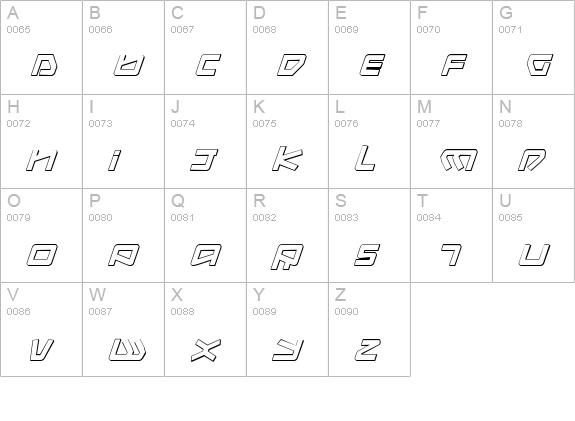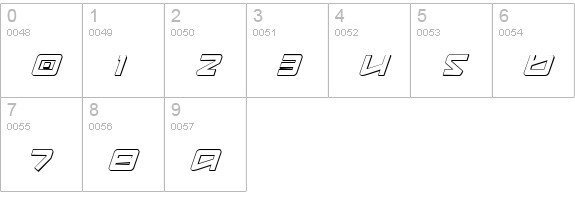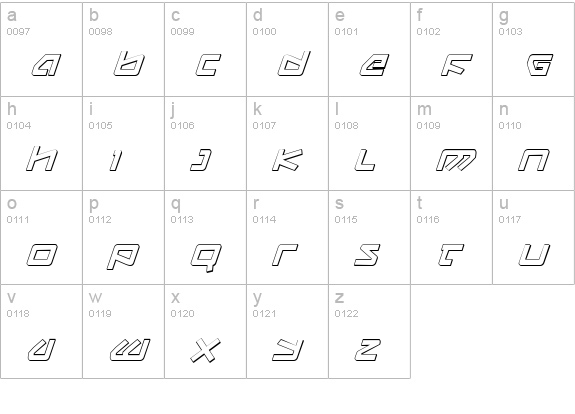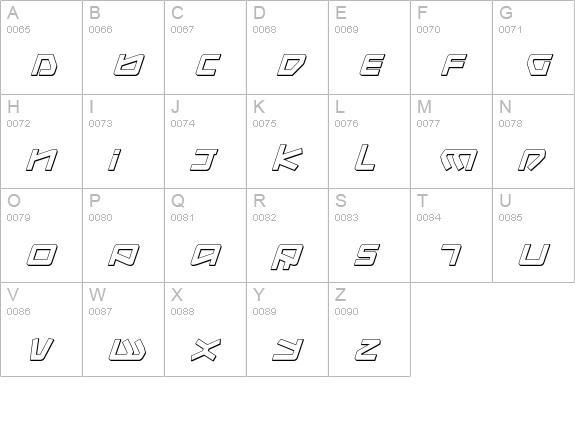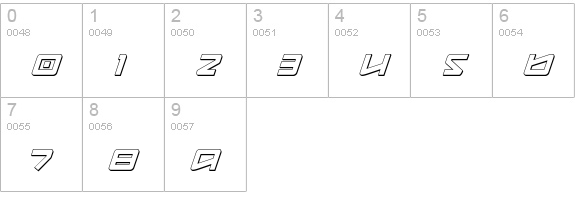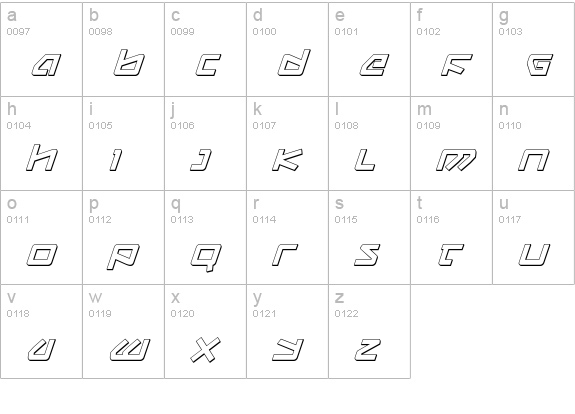
Kobold 3D Italic is a distinctive, italic variant in the Kobold typeface family \xE2\x80\x94 well suited to design and typography projects.
Kobold 3D Italic font is a striking and dynamic typeface that adds a touch of depth and dimension to your designs. With its bold and italicized style, Kobold 3D Italic exudes a sense of energy and modernity that makes it perfect for headlines, posters, and branding projects. The three-dimensional effect of this font creates a sense of movement and excitement, making it stand out in any design. Best of all, Kobold 3D Italic font is available for free download at FontsMarket.com. Whether you're a designer looking to add a unique flair to your projects or a business owner in need of eye-catching typography, Kobold 3D Italic font is a versatile and impactful choice that won't break the bank. Download it today and elevate your designs with this bold and stylish typeface.